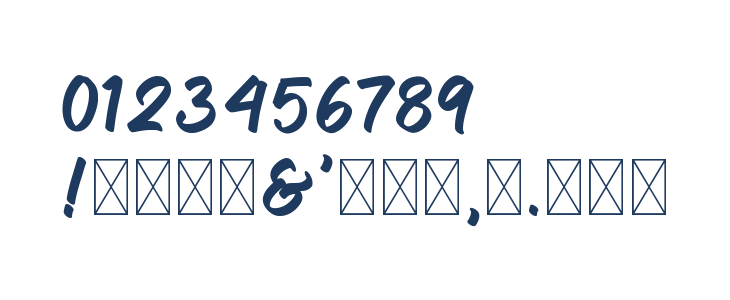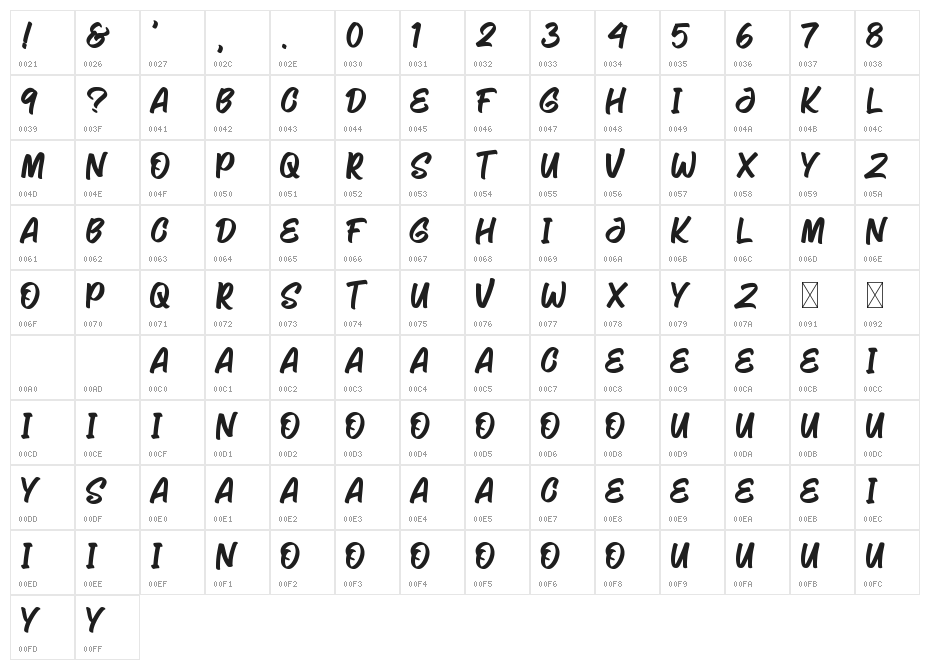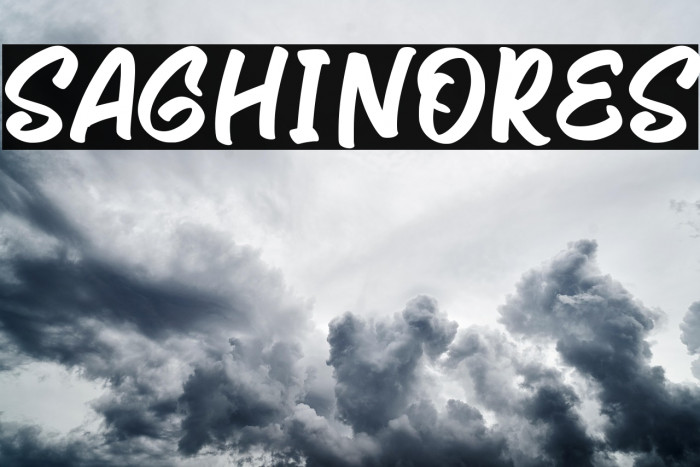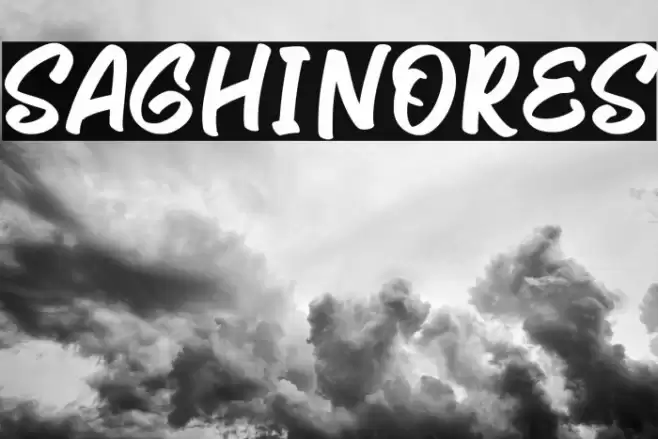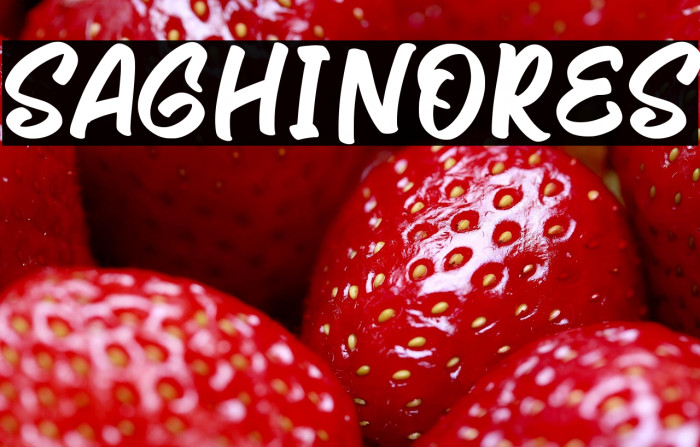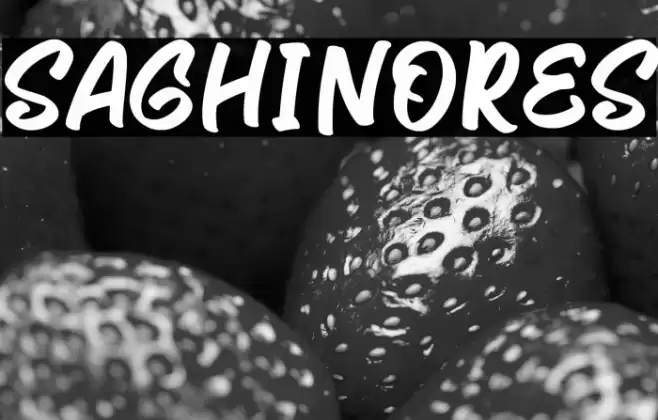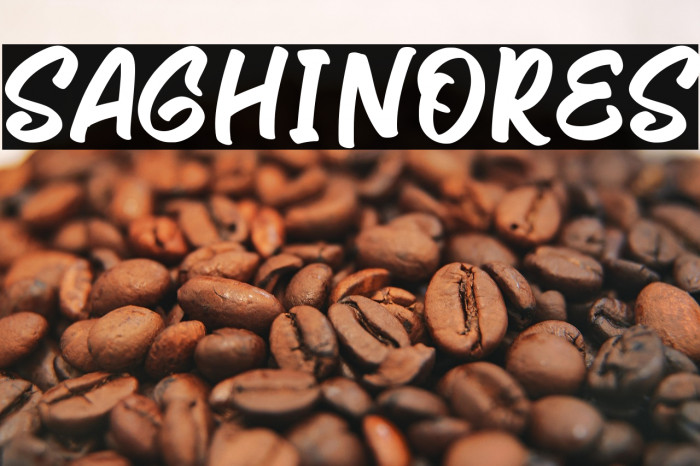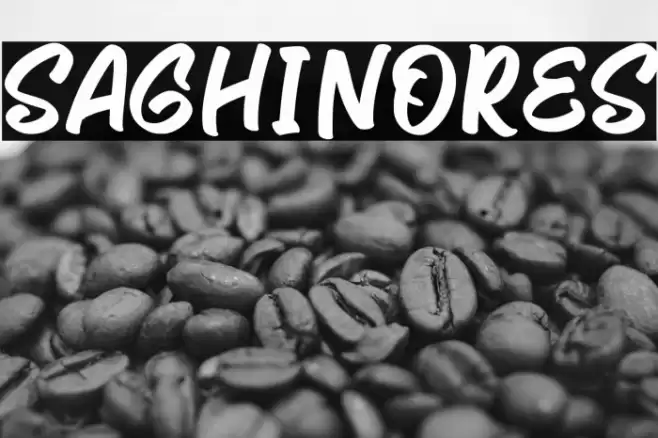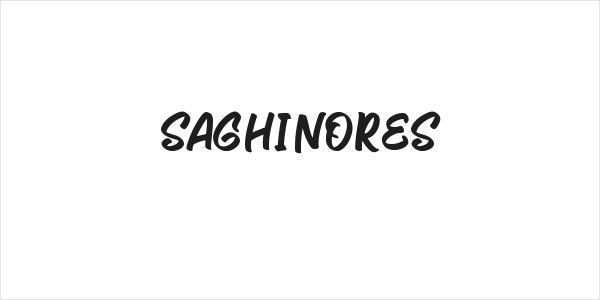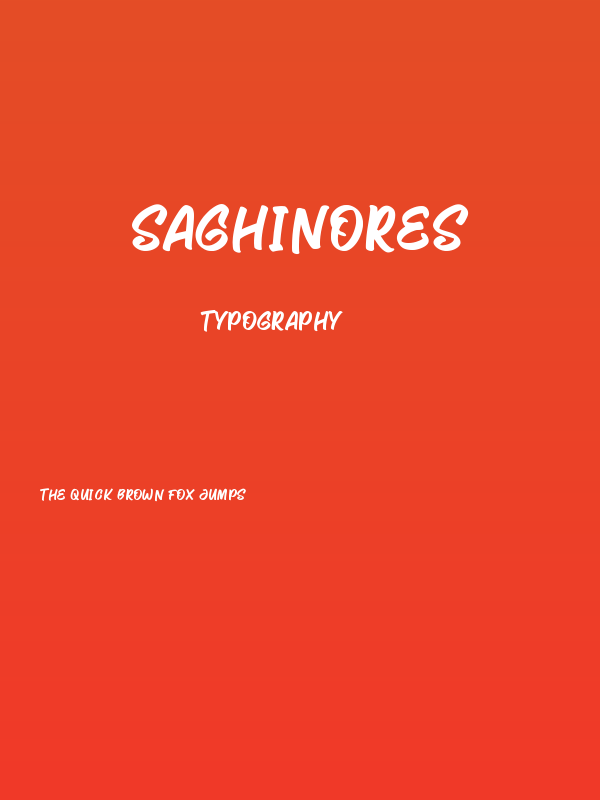
Saghinores Font
Saghinores Description
This font features a bold and dynamic script style with a handwritten appearance. The letters are slightly slanted, giving a sense of movement and energy. The strokes are thick and consistent, providing a strong visual impact. The characters are well-spaced, ensuring readability while maintaining a cohesive look. The numerals and special characters follow the same stylistic approach, making them blend seamlessly with the alphabet. This font is ideal for projects that require a personal touch or an informal, yet stylish, presentation.
Use CaseLogos, Headlines, Invitations
Proposed ProjectsPerfect for branding, logos, invitations, and social media graphics.